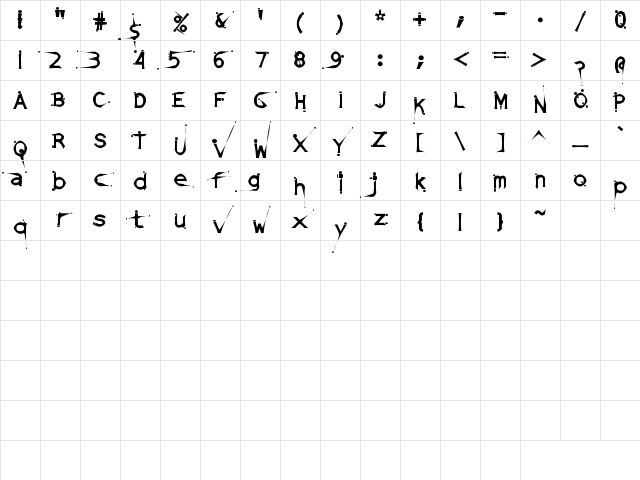
DamagedSataLightExtended Regular
Design Context for DamagedSataLightExtended
DamagedSataLightExtended is a composed and adaptable typeface that performs quietly and consistently across a wide range of design contexts. Its slender proportions lend an understated elegance to any composition.